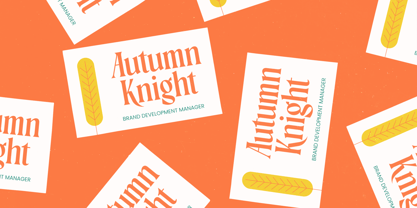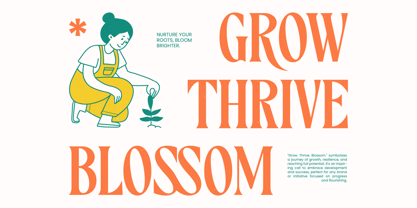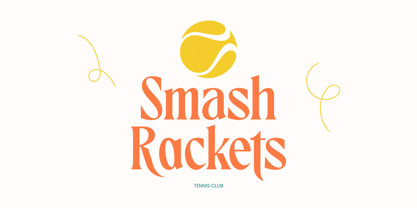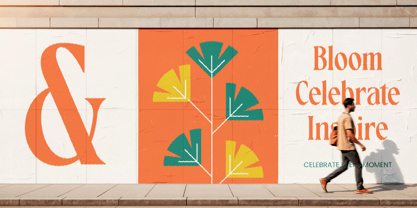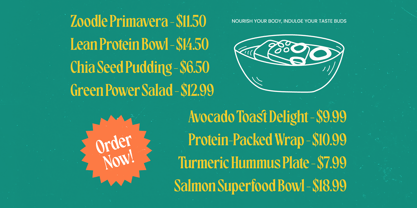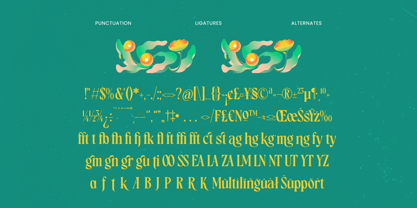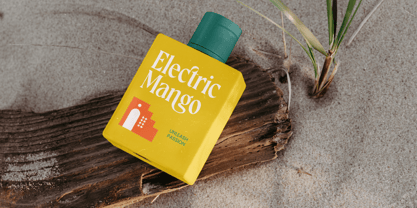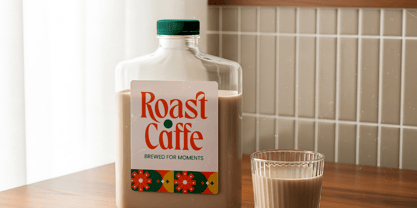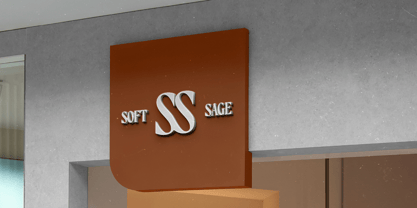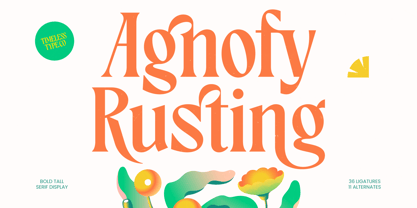
Agnofy Rusting
by Timelesstype Studio
The Agnofy Rusting Font Family was designed by Heru Utama Putra and published by Timelesstype Studio. Agnofy Rusting contains 2 styles and family package options. More about this family
Agnofy Rusting – Bold Tall Serif Display Agnofy Rusting is a bold and elegant tall serif display typeface that blends vintage charm with modern sophistication. Designed to make a striking visual impact, this font features elongated letterforms, refined curves, and high-contrast strokes that exude confidence and style. Its distinctive personality makes Agnofy Rusting perfect for eye-catching headlines and premium branding. The font includes 36 ligatures and 11 stylistic alternates, allowing designers to create unique and expressive typographic compositions with ease. Whether used for editorial layouts, fashion branding, posters, or luxury packaging, Agnofy Rusting delivers a timeless and sophisticated aesthetic. With its graceful yet powerful presence, this typeface is ideal for projects that require elegance, readability, and a memorable visual identity. The combination of classic serif influences and contemporary design ensures versatility across both print and digital media.